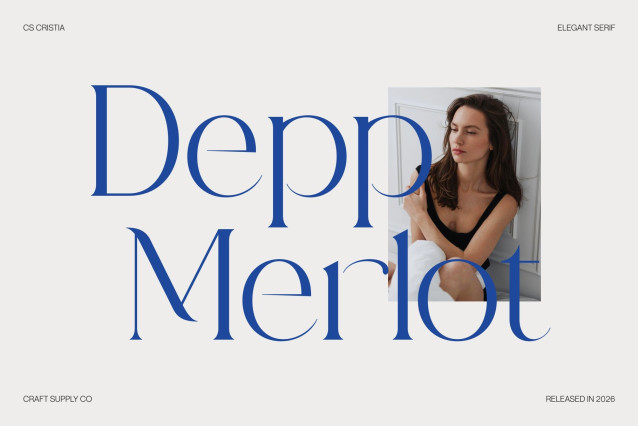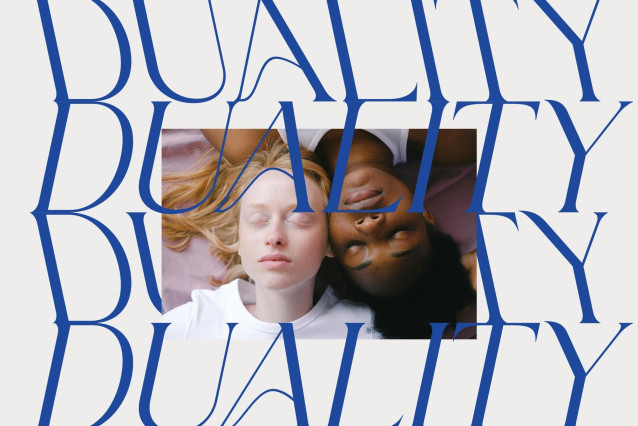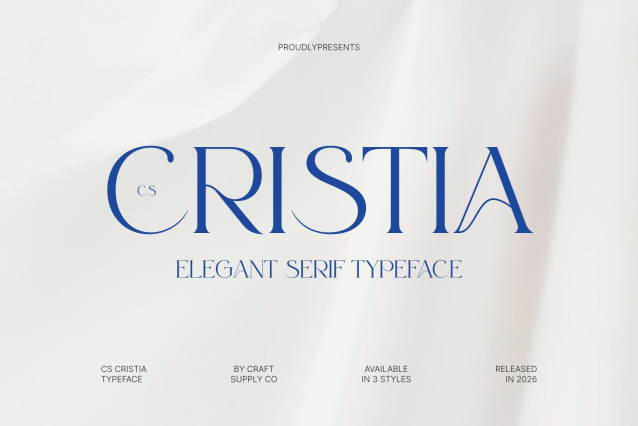
CS Cristia – Elegant Serif Font
CS Cristia – Elegant Serif of Modern Luxury and Refined Beauty
Elegant Serif Font with Modern Luxury Appeal
This is an elegant serif font that embodies a refined sense of style, beauty, and modern luxury. Designed with graceful proportions and carefully balanced contrast, it delivers a sophisticated typographic voice that feels both timeless and contemporary. The font captures a premium aesthetic that enhances any high-end visual composition.
Fresh Design with Beautiful Modern Character
With its fresh and modern design approach, this font brings a clean and fashionable personality to classic serif structure. The letterforms are shaped with smooth elegance and subtle refinement, creating a harmonious flow that feels stylish, luxurious, and visually engaging across every application.
Refined Details for Sophisticated Expression
This font is defined by its delicate details and polished structure, giving each character a sense of clarity and elegance. The refined serif forms enhance readability while maintaining a distinctive luxury feel, making the typeface suitable for both expressive and minimal compositions.